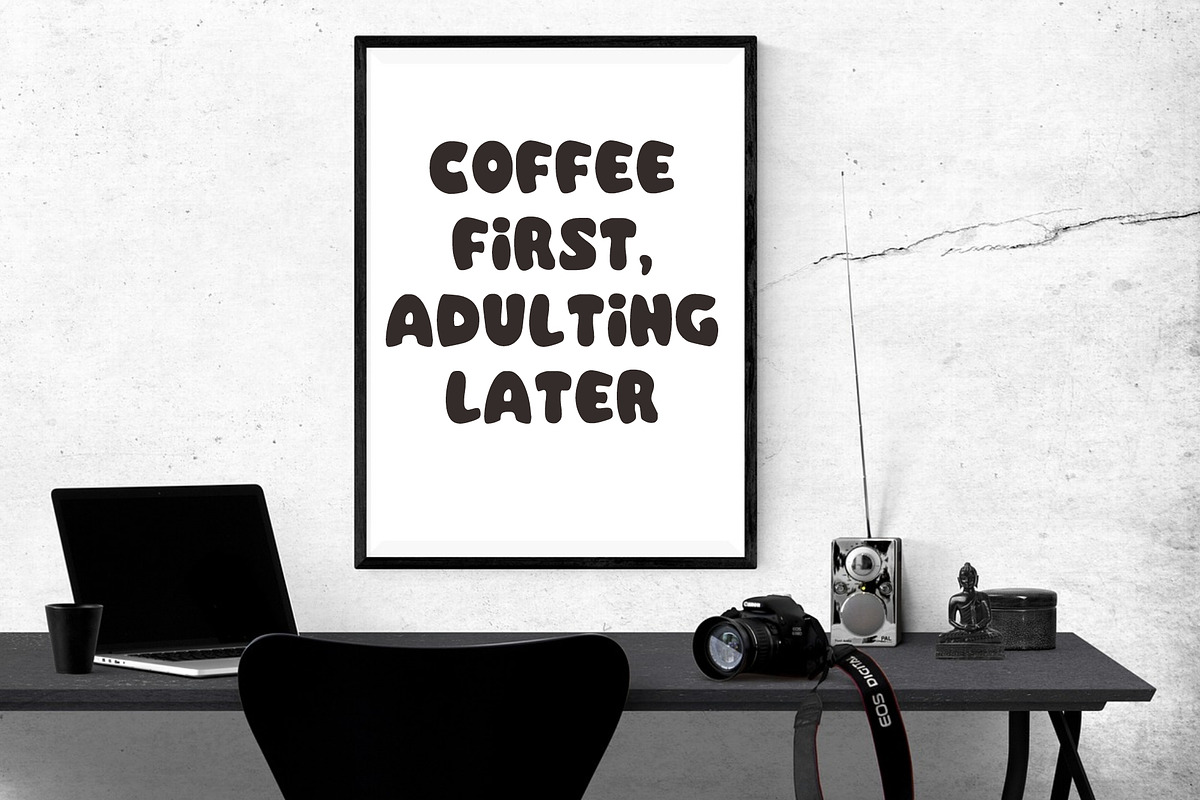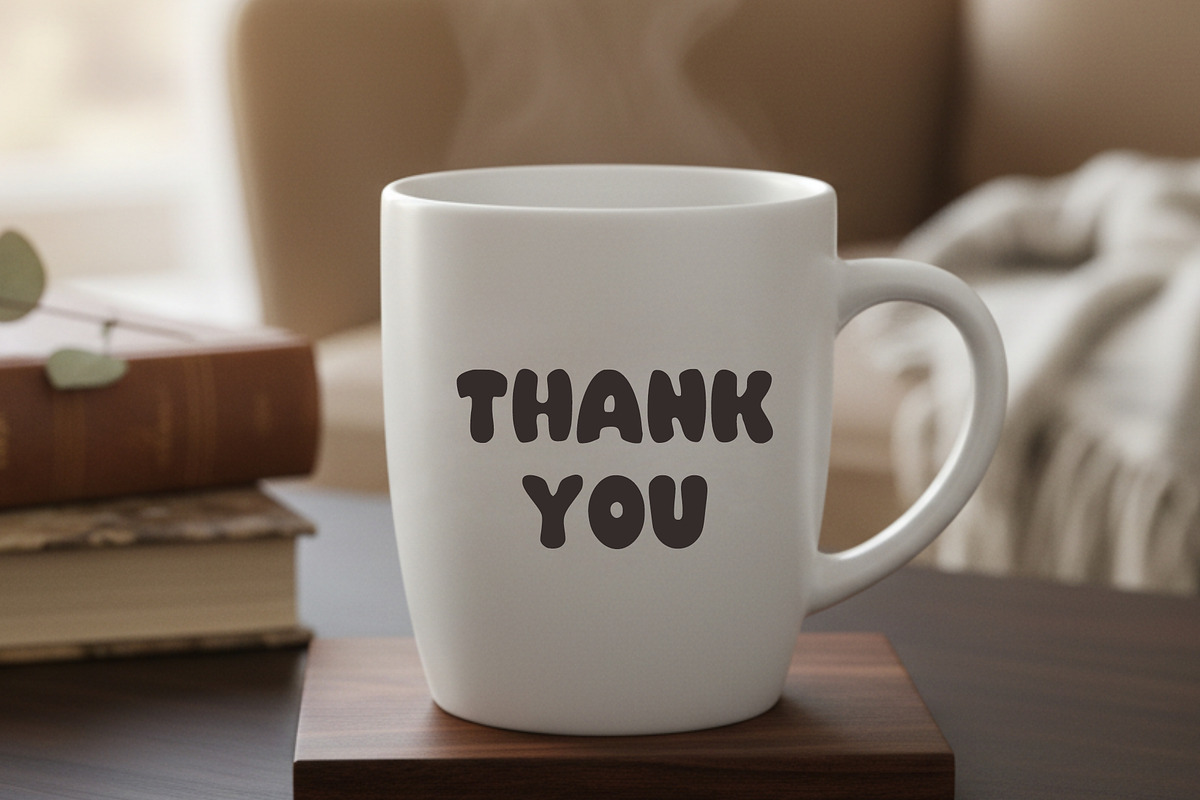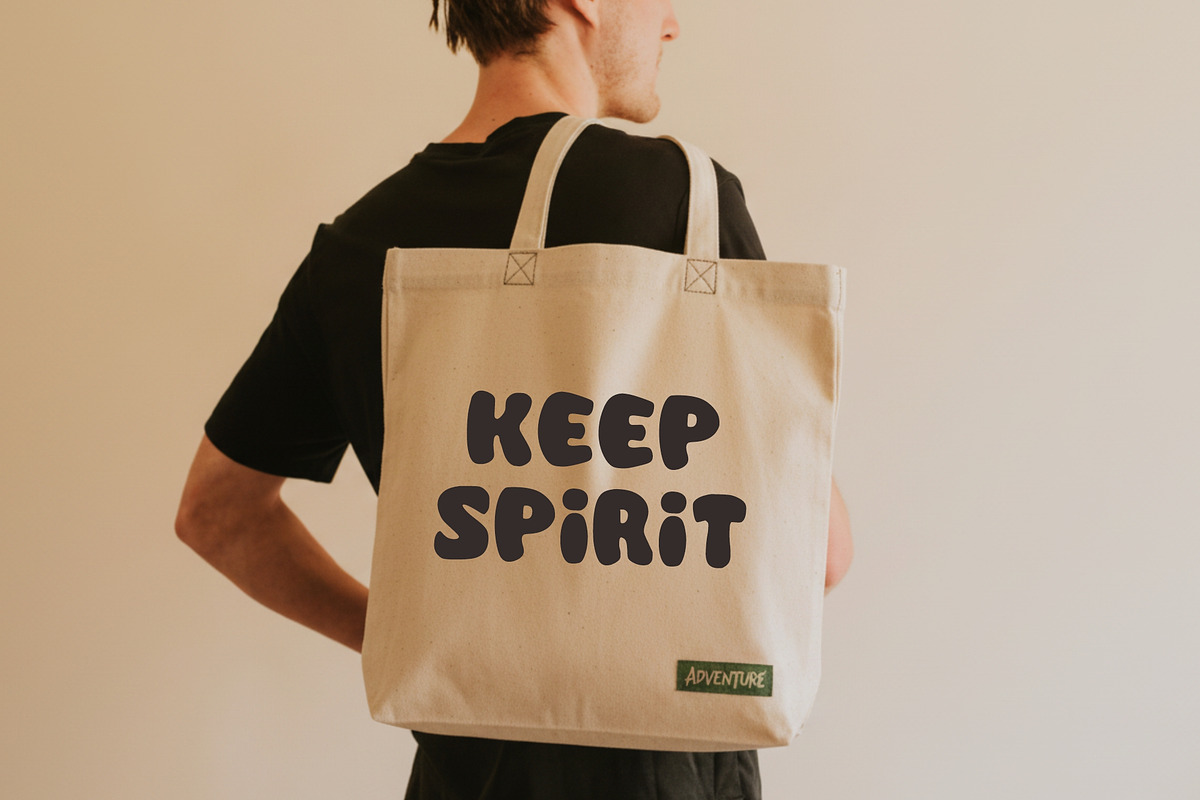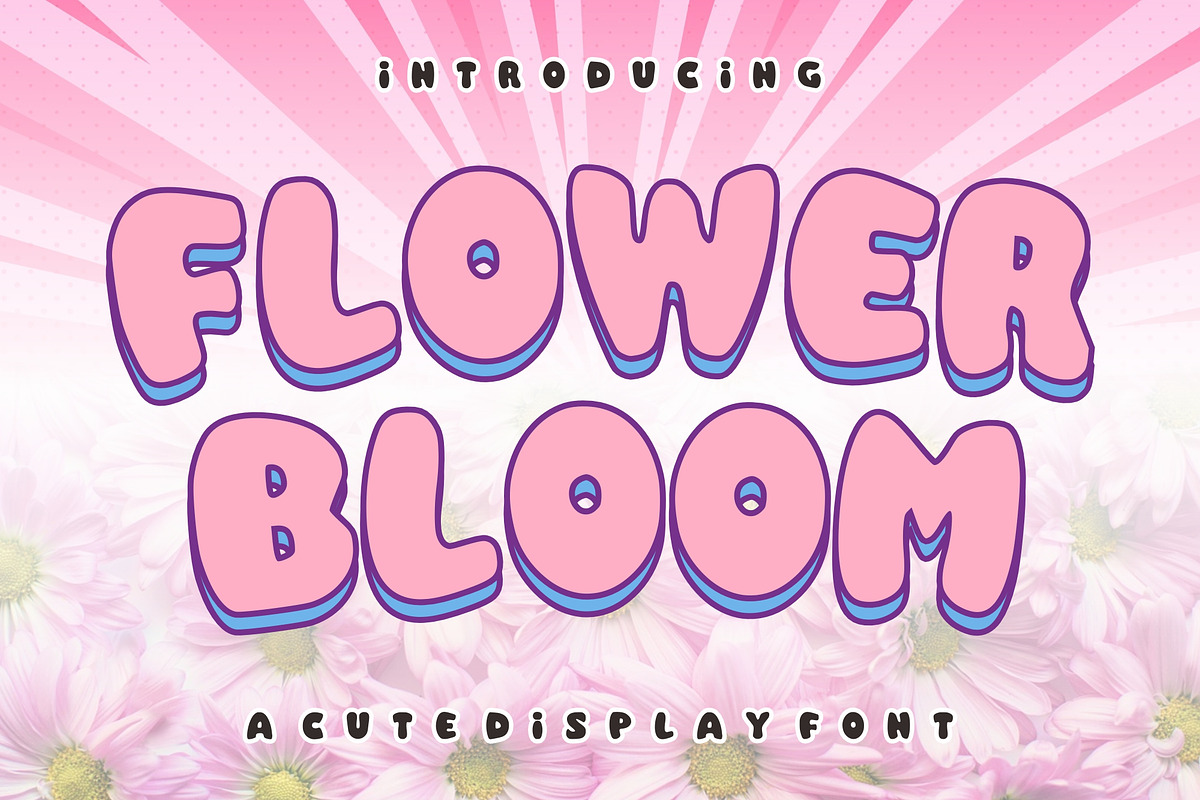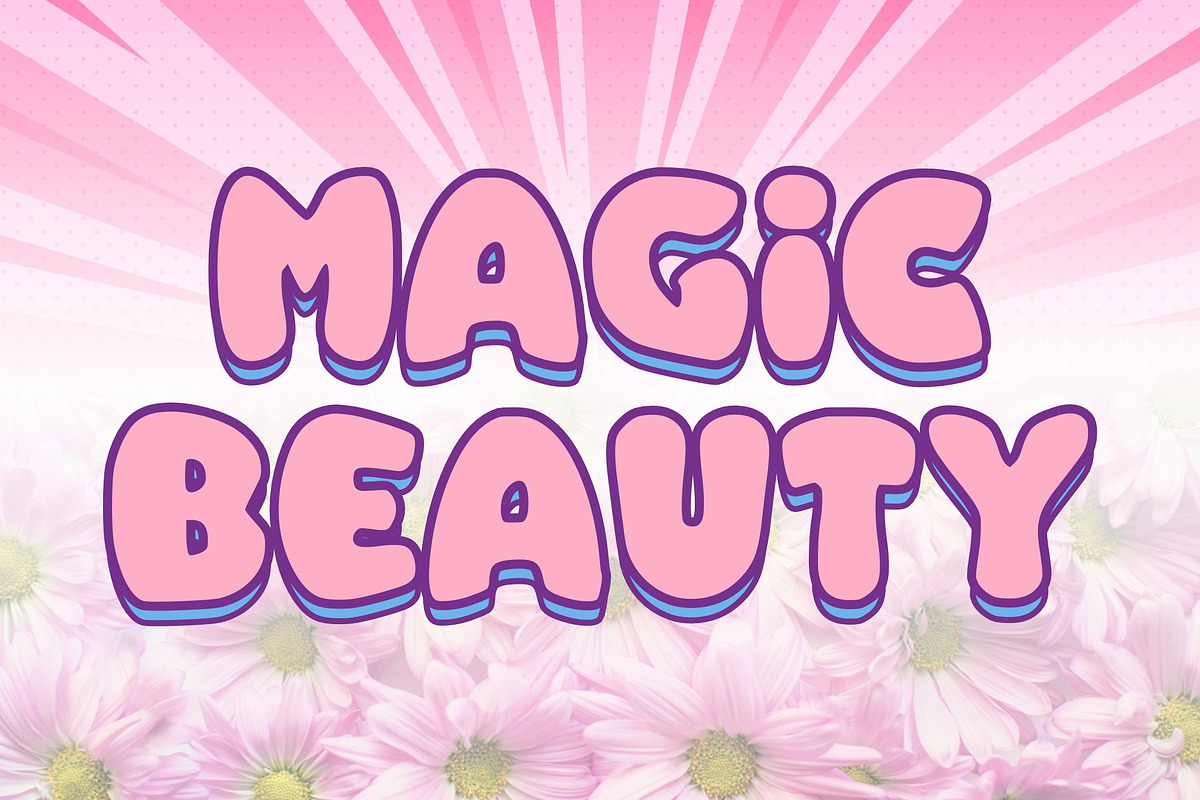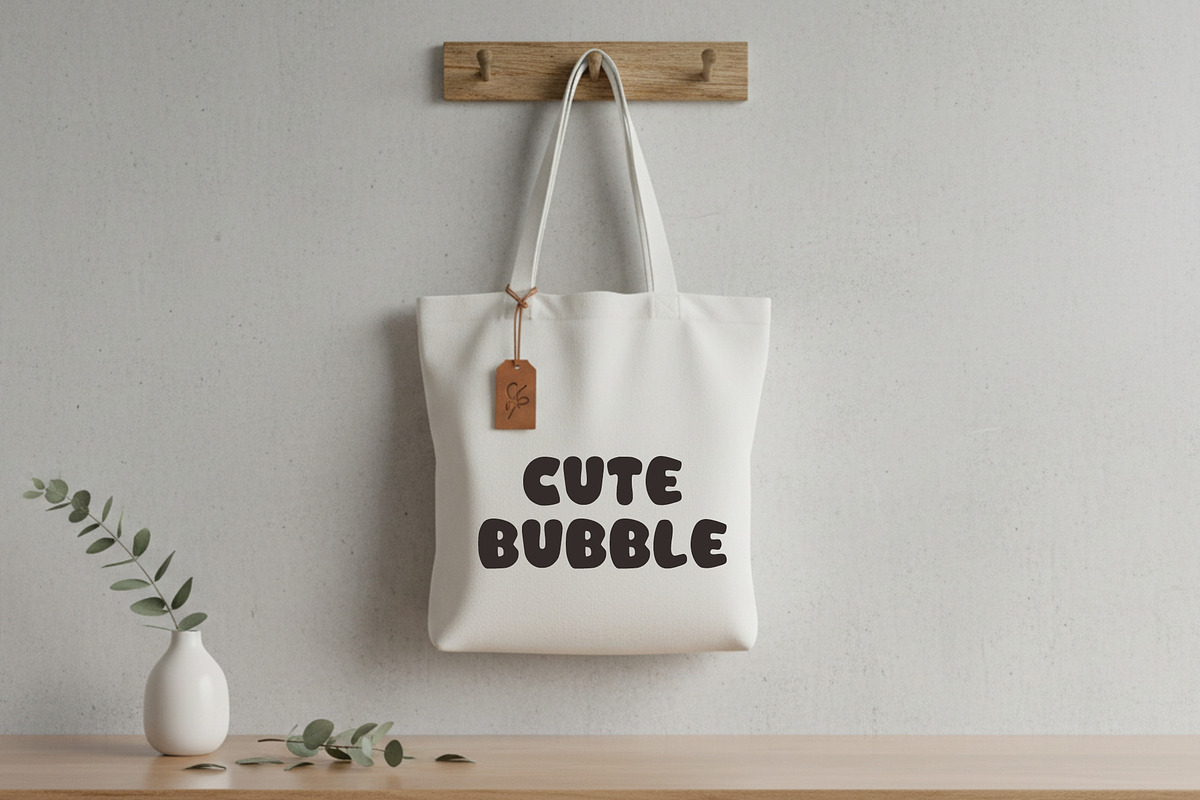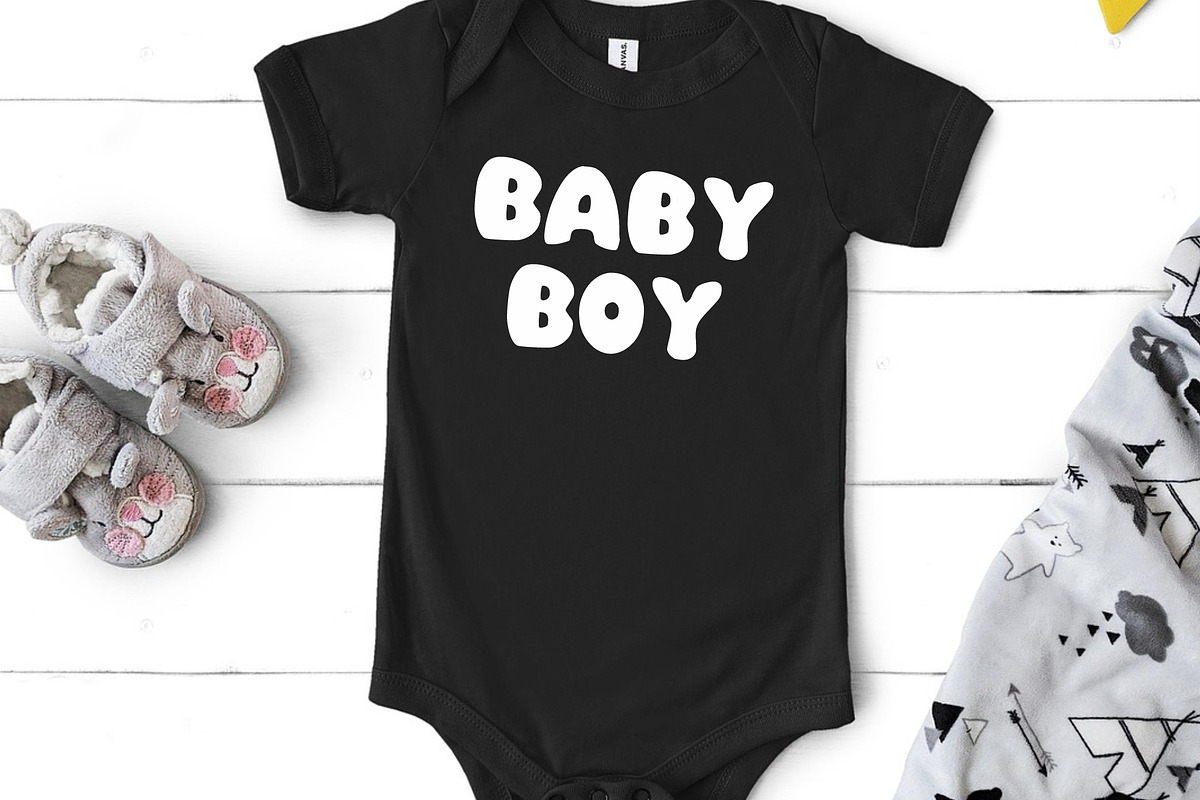
Flower Bloom
Flower Bloom is a cute and playful display font featuring bold bubble shapes with a soft and friendly personality. Inspired by blooming flowers and cheerful spring vibes, this font is perfect for designs that need a fun, sweet, and eye-catching touch. Its rounded forms and thick strokes make it highly readable while still maintaining a whimsical aesthetic.
Perfect for kids-related designs, branding, posters, social media, packaging, and more!
Features: – Uppercase & lowercase letters – Numbers & punctuation – Multilingual support – Bold and rounded bubble style – Easy to read and versatile
Best Used For: – Kids products – Cute branding – Posters & flyers – Social media content – Stickers & merch – Greeting cards – Packaging design